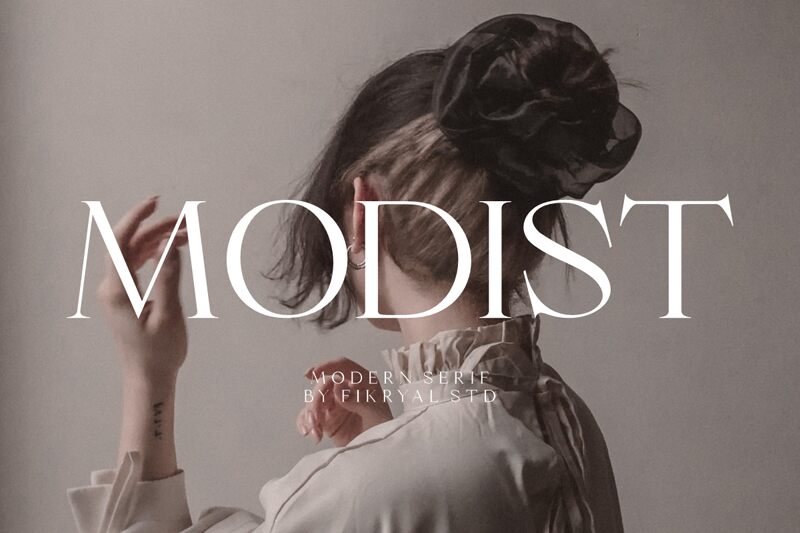
Modist
Modist font by Fikryal studio is a classic and timeless serif font that captures the essence of elegance and sophistication. Its refined appearance features delicate serif accents, making it an ideal choice for artistic designs with a modern touch of class. The clean lines and polished style make it perfect for contemporary design projects.
Take advantage of this free serif font when designing stationery, business cards, logos, engagement invitations, book covers, social media posts, quotes, web profiles, headings and subheadings at websites or magazines. The gentle Modist fits even bigger product packaging projects connected to fashion or cosmetic purposes.